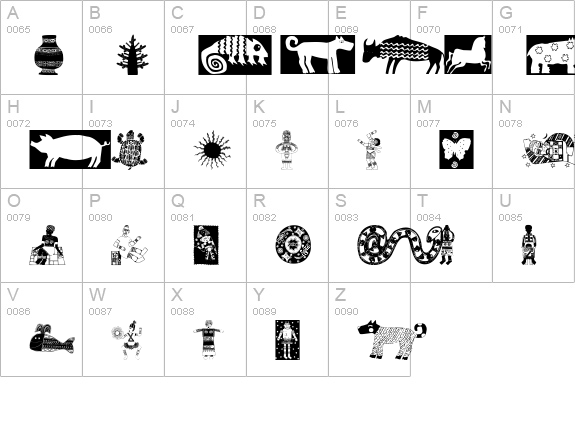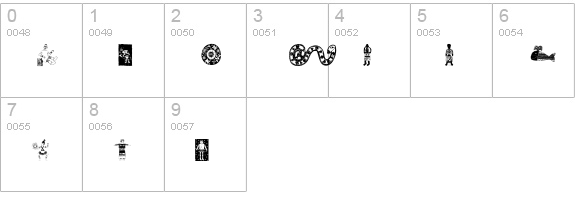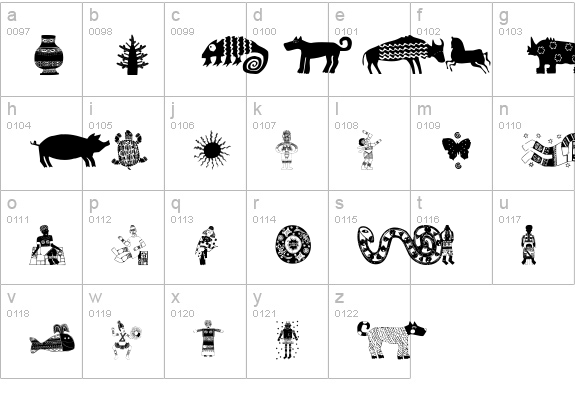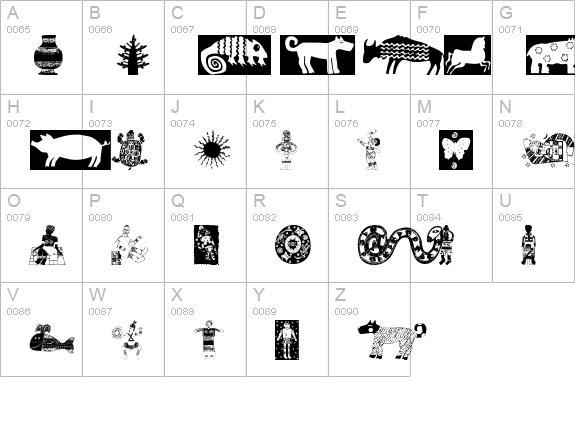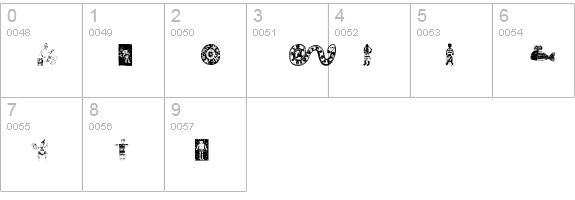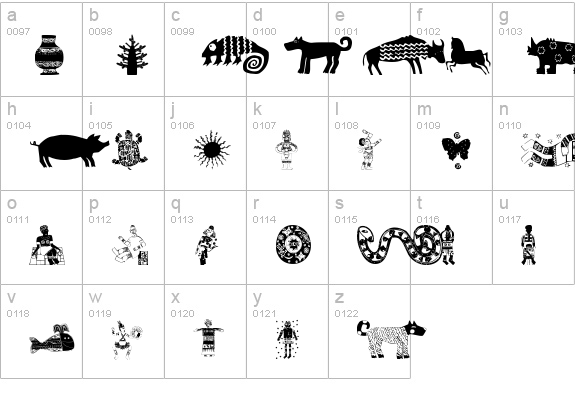
Africain Font Details
Africain font is a stunning and elegant typeface that captures the essence of African culture and heritage. With its unique design inspired by traditional African motifs and patterns, this font is perfect for adding a touch of exotic flair to your projects. Not only does Africain font exude a sense of warmth and authenticity, but it also offers a wide range of versatility, making it suitable for a variety of design purposes. Whether you are working on a branding project, creating eye-catching marketing materials, or designing a cultural publication, Africain font is sure to make a bold statement. And the best part? Africain font is completely free to download at FontsMarket.com, allowing you to access this beautiful typeface without any cost. So why wait? Add a touch of African inspiration to your designs today with Africain font.